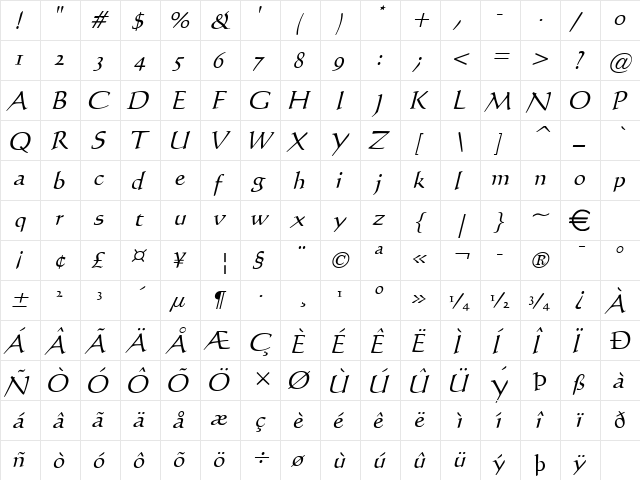
Calli109 Italic
Design Context for Calli109 Typeface
Calli109 takes a measured approach to typography — its balanced proportions and neutral character make it a reliable workhorse for both digital and print work. The slanted form adds forward momentum and visual energy.
Pro Tip: Try Calli109 for annotation and caption copy alongside an upright companion — the contrast in angle creates a dynamic but ordered typographic system.